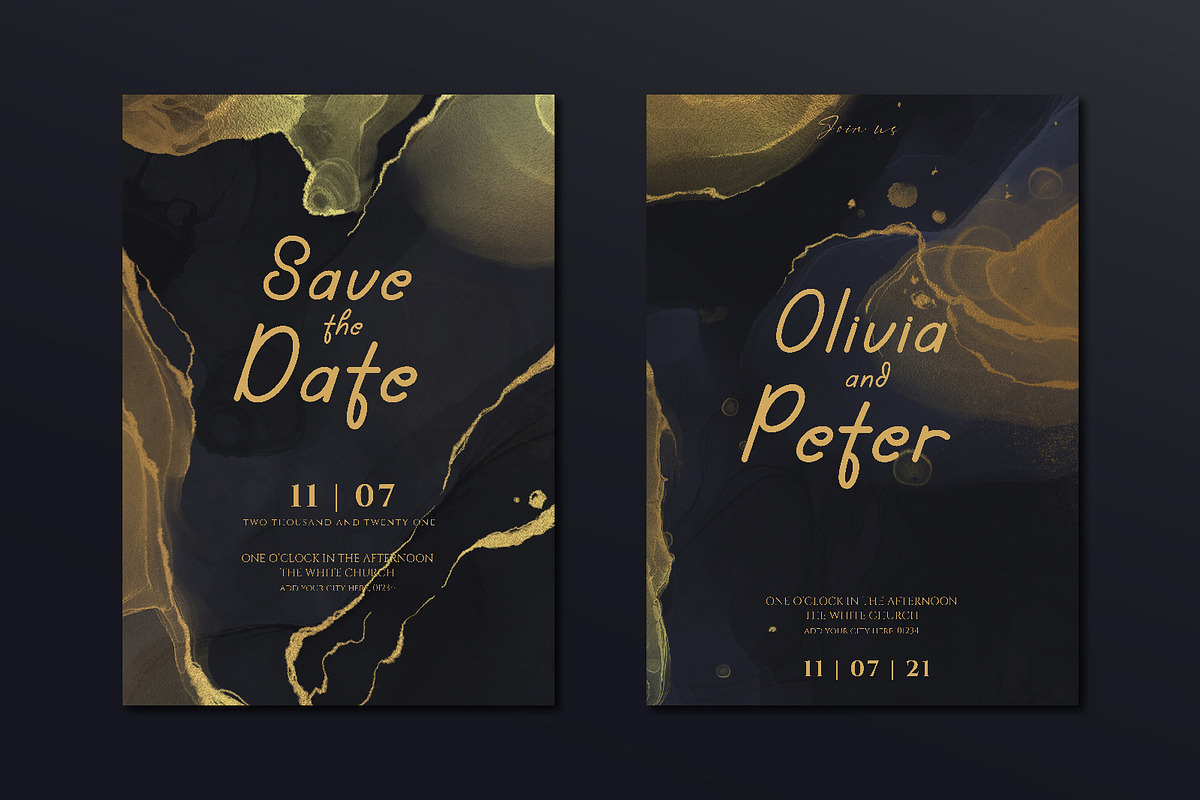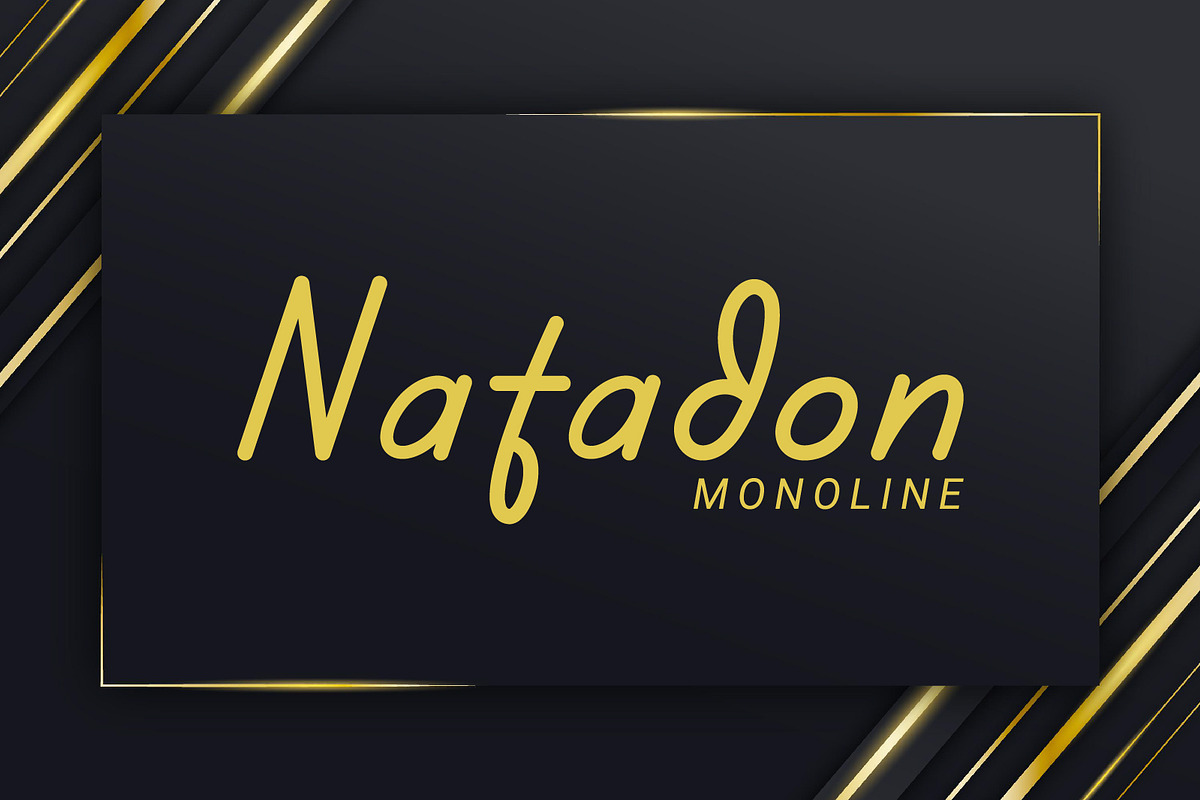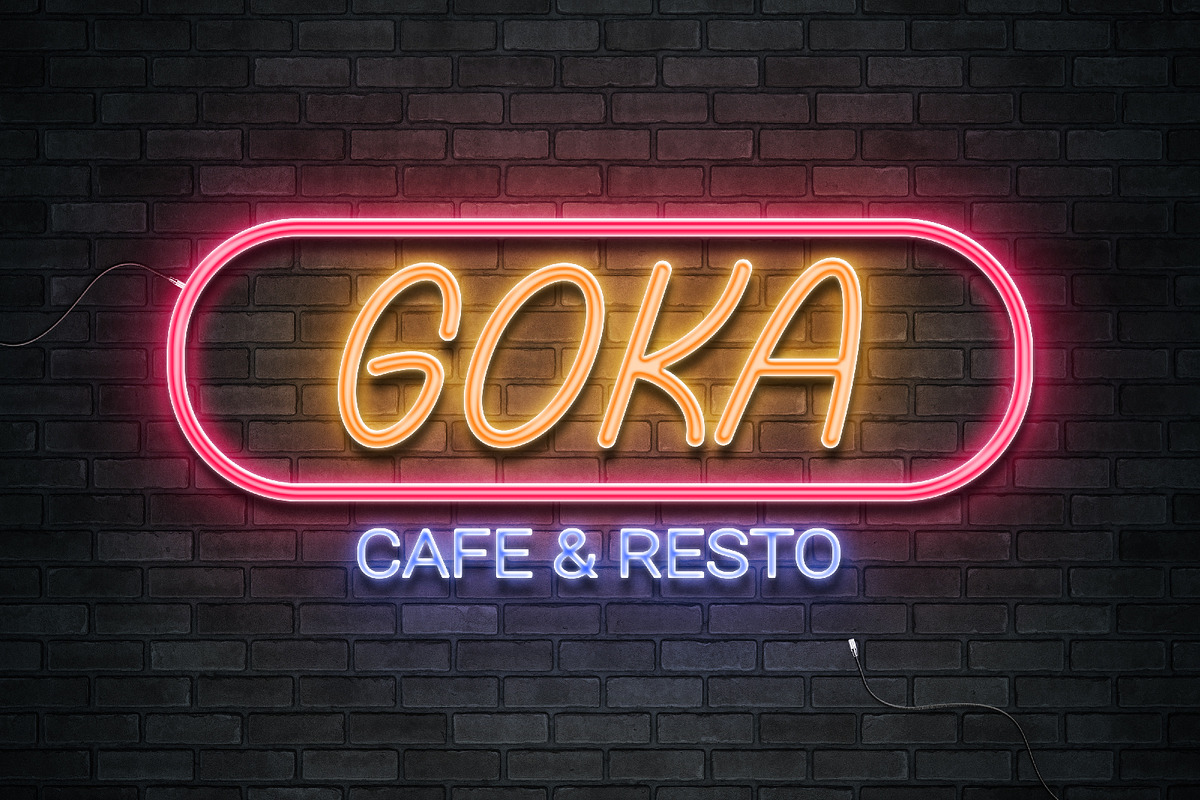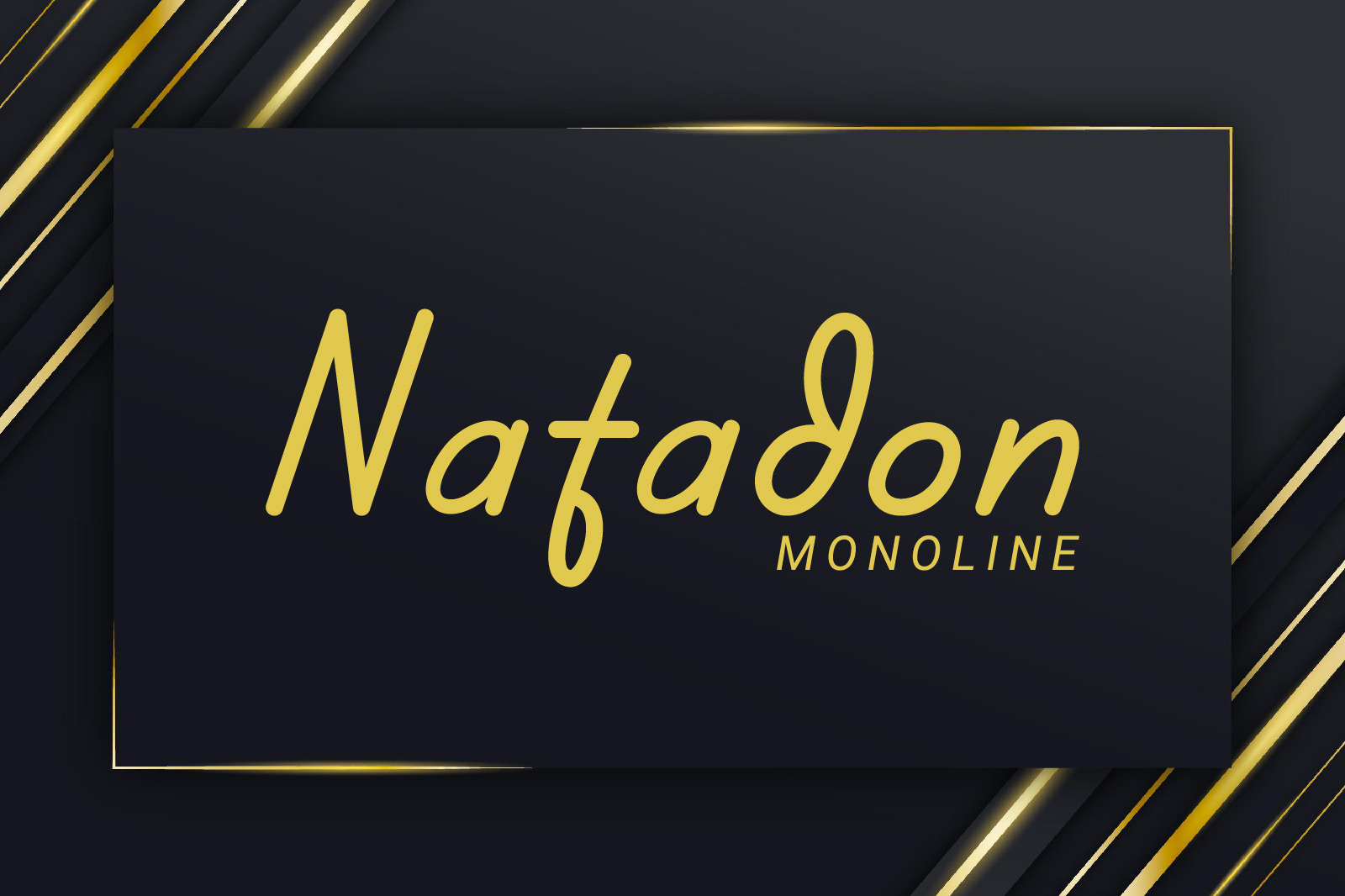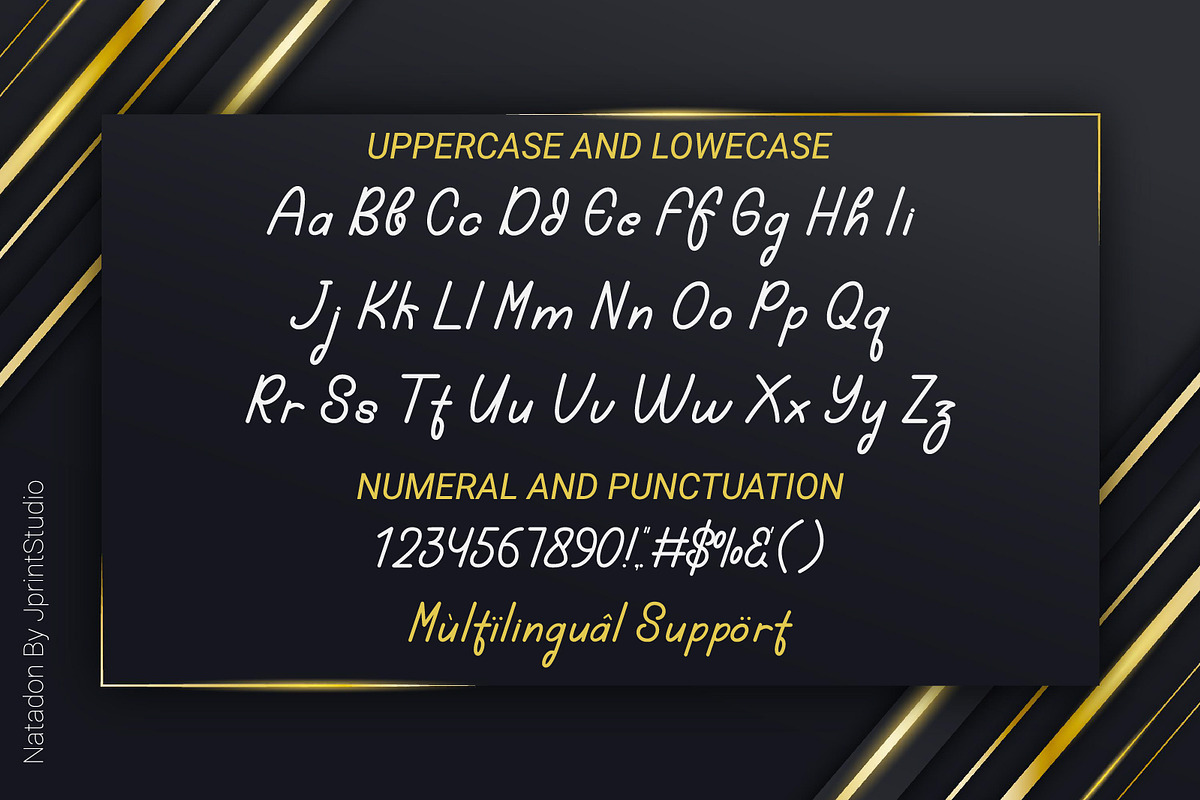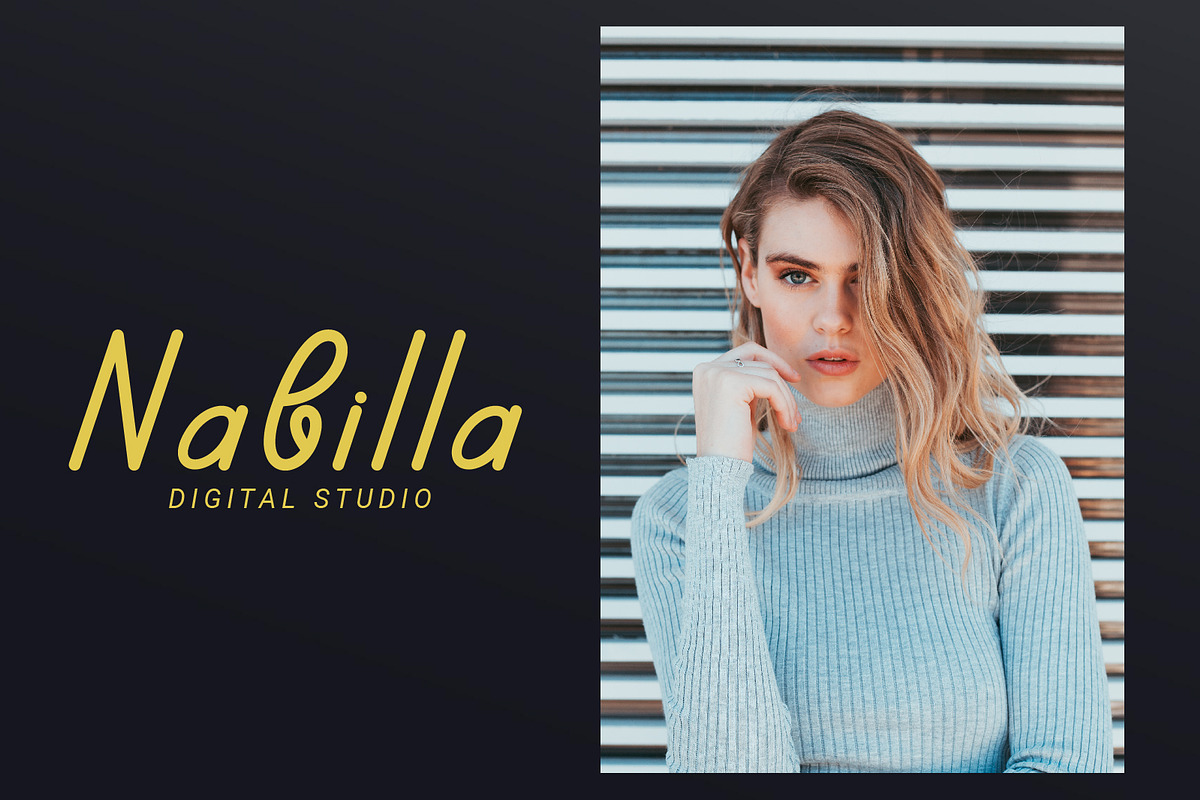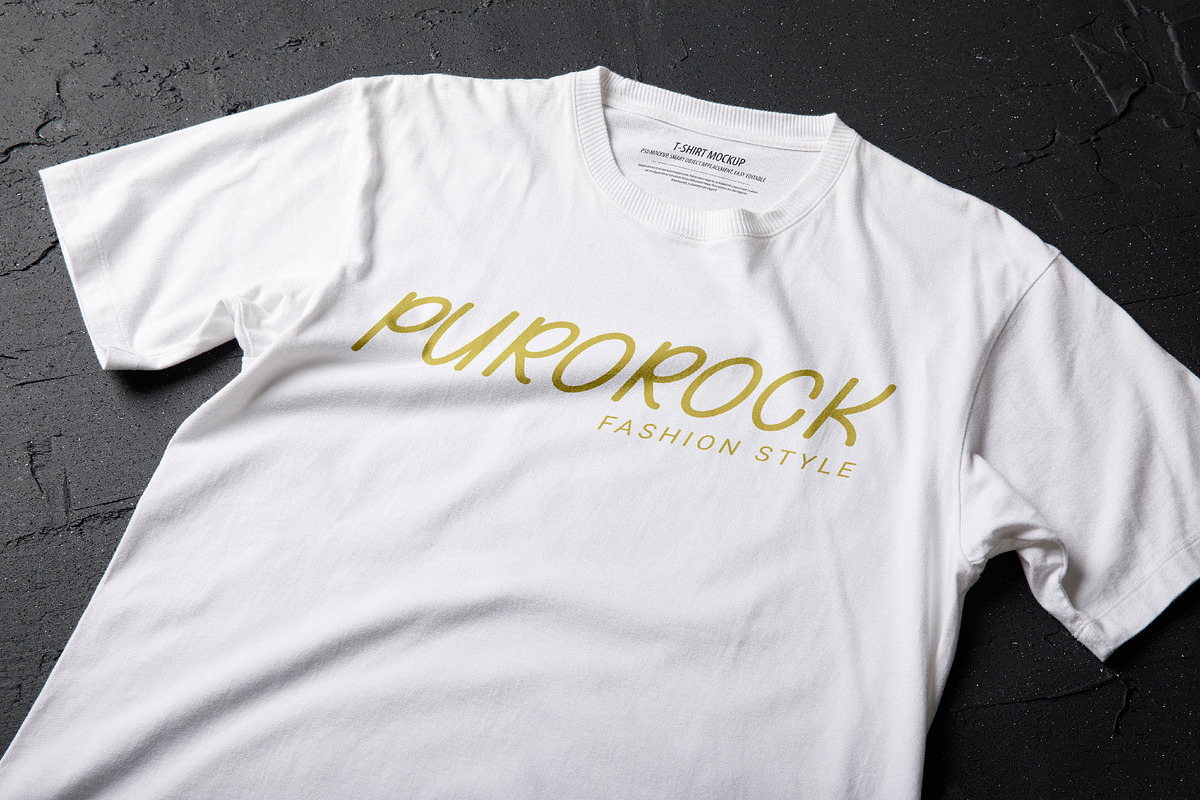
Natadon | Monoline Font
Natadon is a cute handwritten font. It will elevate a variety of design projects to the highest level, be it branding, headings, wedding designs, invitations, signatures, logos, labels, and more! This font will turn any creative idea into a true work of art!